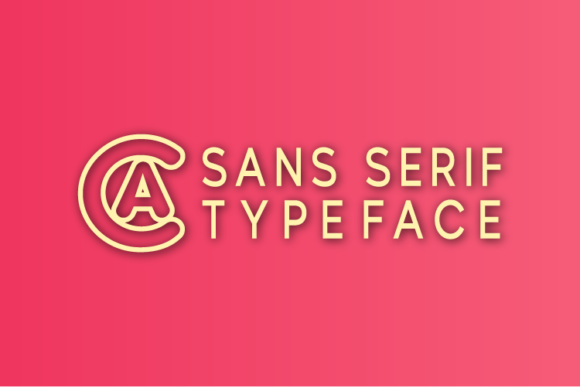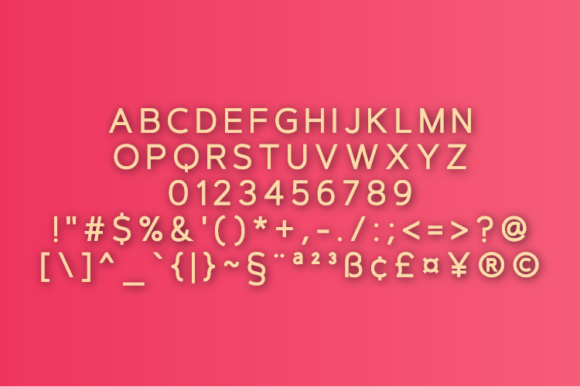
Unlocking Creativity with the Bitrone Font
Have you ever been stuck in the middle of a design project, staring at a blank page, wondering what’s missing? That’s where inspiration strikes – in the smallest details. For me, it was a simple font that made all the difference. A clean and minimal sans serif font that elevated my design from good to great.
Enter the Bitrone Font, a versatile and sleek addition to any project. Its purpose is to provide a solid foundation for your creative ideas, allowing them to shine in their full glory. With its incredible versatility, the Bitrone Font can be matched to a wide range of projects, making it an invaluable tool for designers.
Whether you’re a seasoned pro or just starting out, the Bitrone Font is a valuable asset to add to your toolkit. Its simplicity and elegance make it a perfect choice for designers looking to create stunning and memorable designs.
Bitrone Font Key Features
- Font Family: Bitrone is a sans-serif font family, ideal for modern designs and digital interfaces.
- Unique Characteristics: Bitrone features a clean, modern aesthetic with subtle rounded edges, making it suitable for a wide range of applications, from digital interfaces to print materials.
- Language Support: Supports a wide range of languages, including Latin, Cyrillic, and Greek scripts, making it a versatile choice for global designs.
Bitrone Font Review
When I first laid eyes on Bitrone, I was immediately drawn to its sleek and modern aesthetic. The font has a certain ✨ sophistication to it, making it perfect for high-end brands or luxury products. The clean lines and geometric shapes give it a unique and edgy feel that’s hard to ignore.
- The font is highly legible, even at smaller sizes, making it perfect for digital applications.
- The range of weights and styles available makes it incredibly versatile and easy to use in a variety of contexts.
- The font is highly customizable, allowing you to fine-tune the look and feel to suit your specific needs.
However, there are a few limitations to consider. ⚠️ The font may be too minimalist for some users, making it difficult to read in certain situations. Additionally, the font may not be suitable for text-heavy applications, as it can start to feel a bit overwhelming.
Overall, I’d say that Bitrone is a solid choice for designers looking for a modern and sleek font. While it may have some limitations, its versatility and customizability make it a valuable addition to any design arsenal.
Bitrone Font is versatile and can be used in a variety of contexts, including:
- Graphic design and illustrations
- Print design and marketing materials
- Presentations and documents